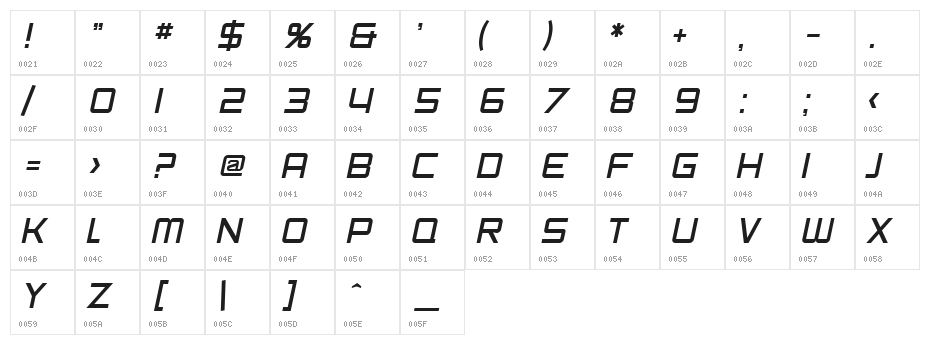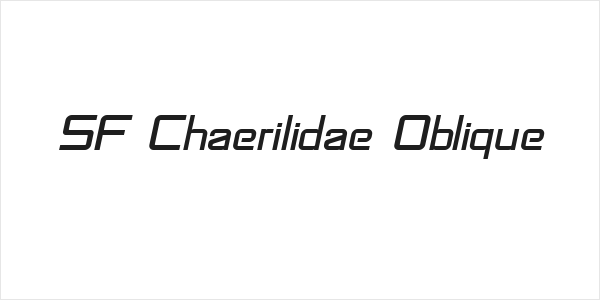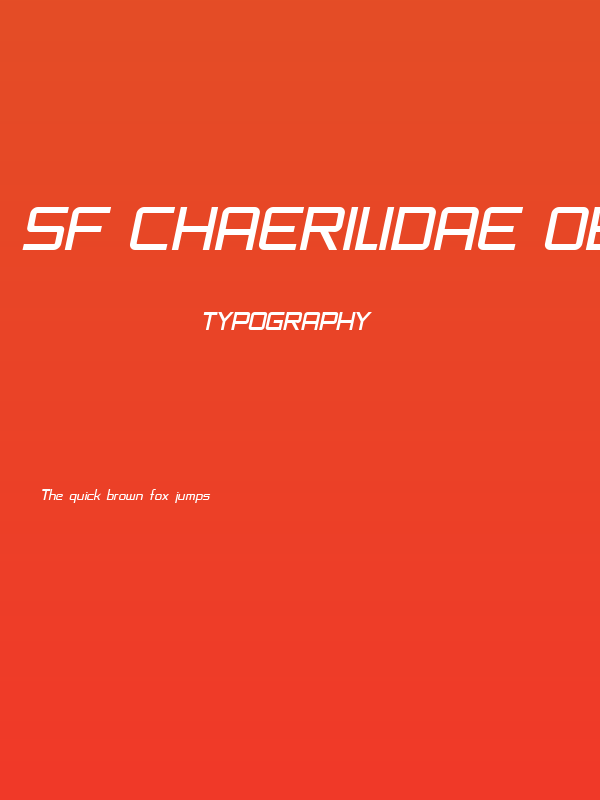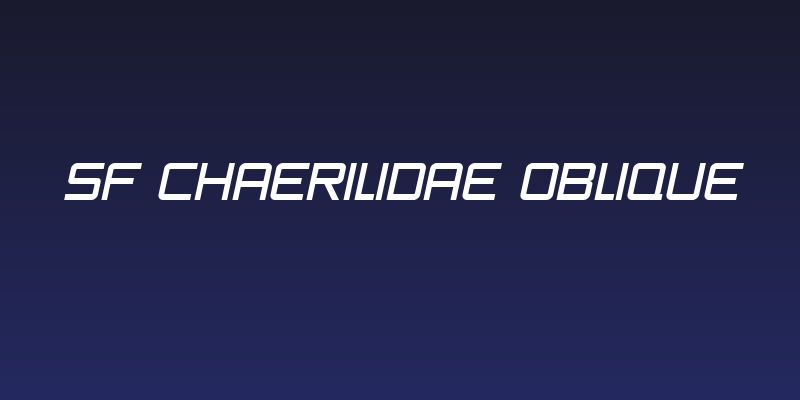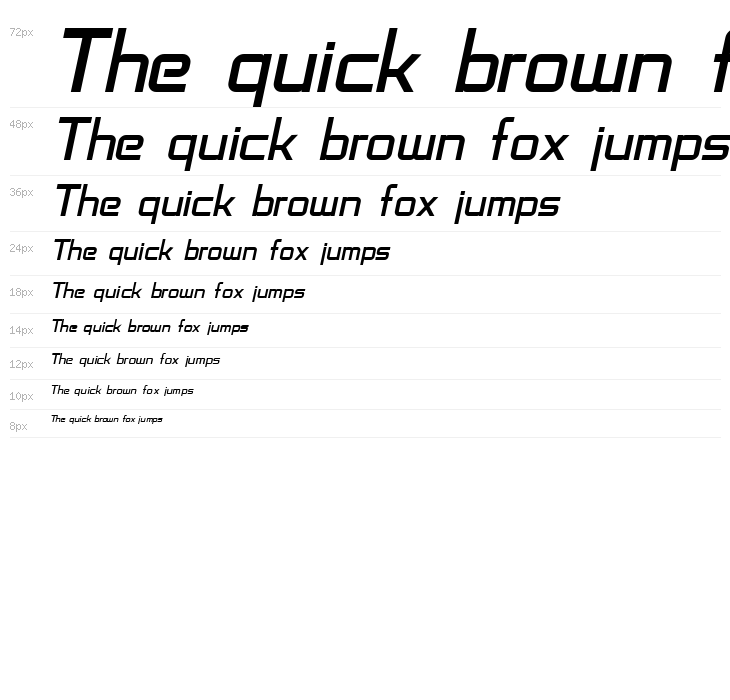
SF Chaerilidae Oblique Font
SF Chaerilidae Oblique Description
This font features a sleek, modern design with an oblique orientation, giving it a dynamic and forward-leaning appearance. The characters are slightly condensed, with a uniform stroke width that maintains consistency across both uppercase and lowercase letters. The geometric shapes and clean lines contribute to its contemporary aesthetic, making it suitable for a variety of digital and print applications. The numerals and special characters are designed to match the overall style, ensuring a cohesive look throughout any text. Its clarity and readability make it an excellent choice for projects that require a modern and professional touch.
| Use Case | Headlines, Logos, Digital interfaces |
| Proposed Projects | Ideal for technology branding, modern advertising, digital interfaces, and editorial design. |